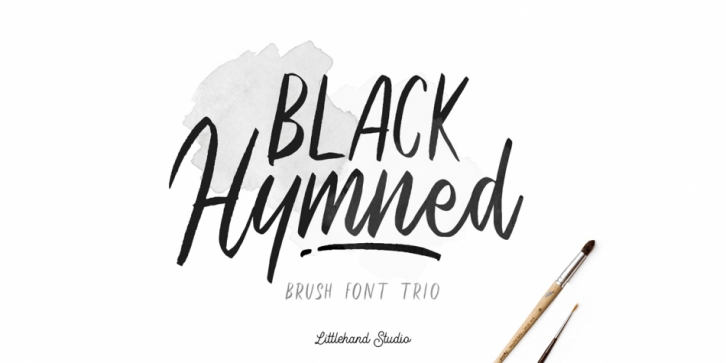
Designed by Hendry Juanda, Black Hymned is a hand display, script and dingbat font family. This typeface has three styles and was published by Letterhend Studio.
Black Hymned - Font Trio!
Black Hymned - Font Trio is a font package containing three style with same vibes!. Each font contains lowercase, uppercase, numbers, symbols and also supports multi languages. You will get TTF and OTF. This font can use in any software without problem! A simple font.
Black Hymned - Font Trio LS Script·
Black Hymned - Font Trio LS Sans·